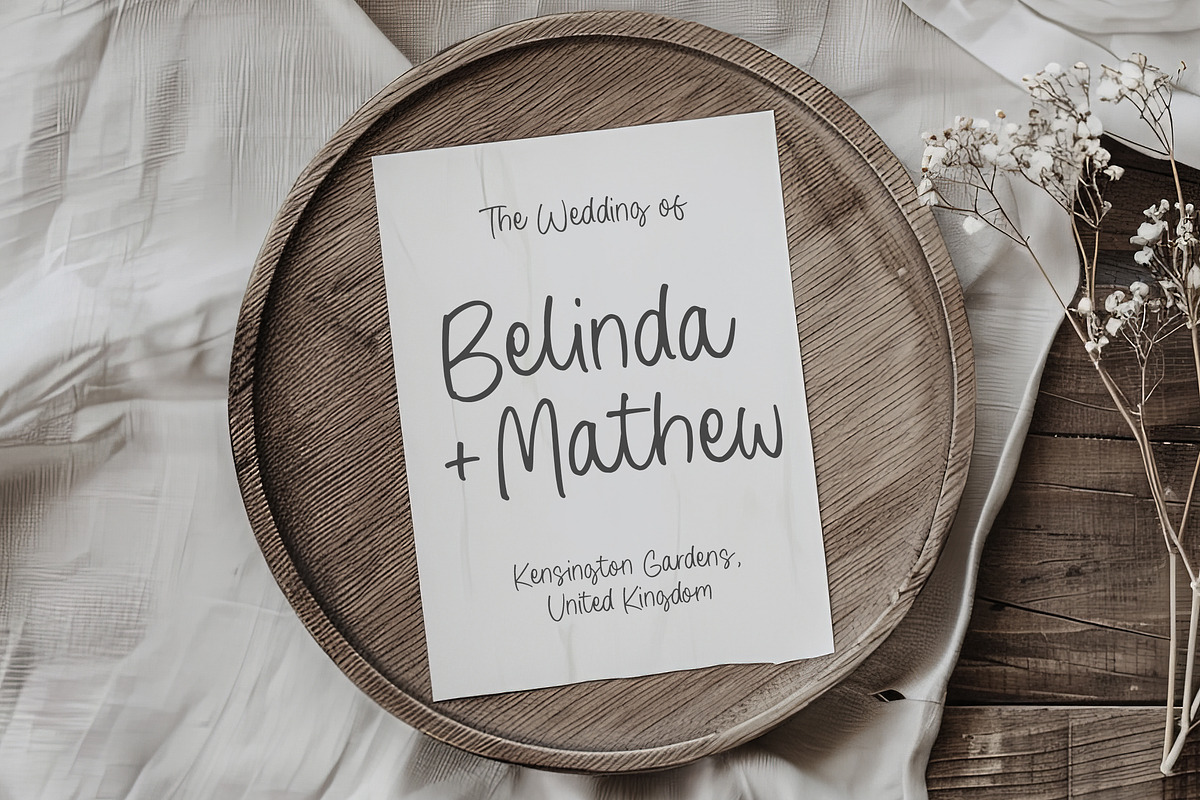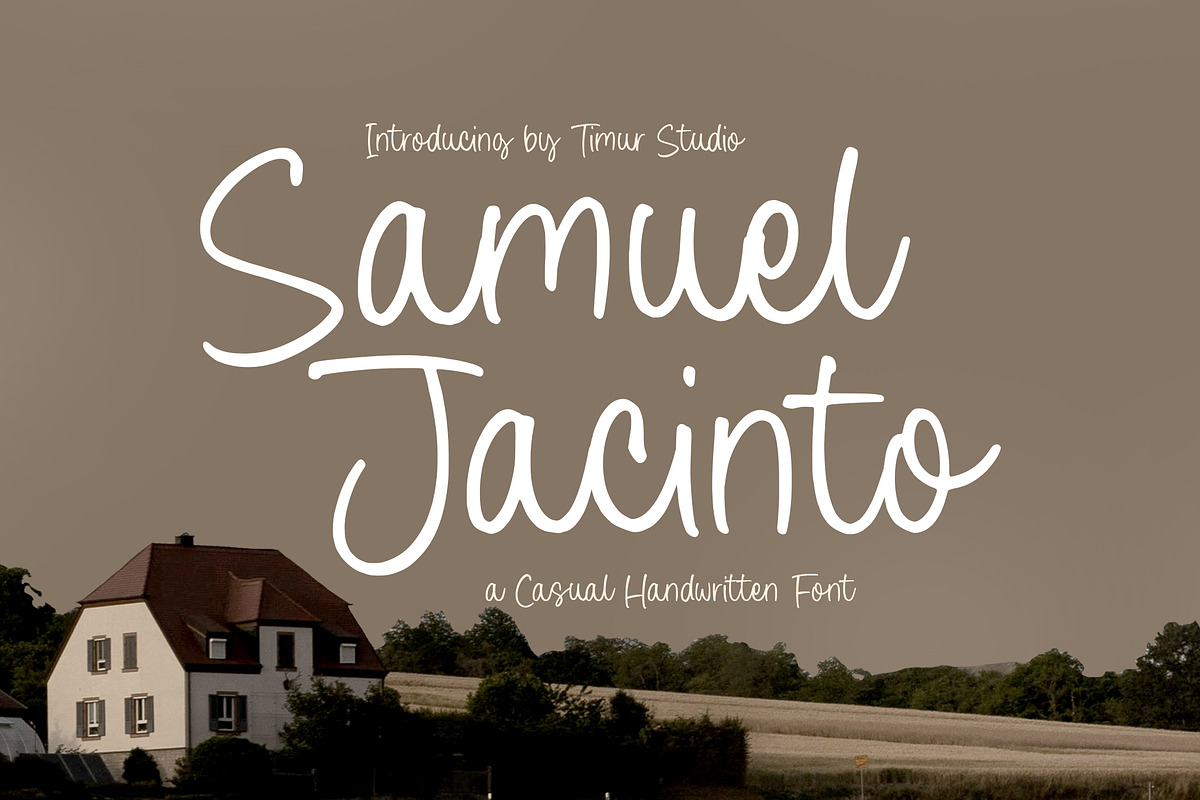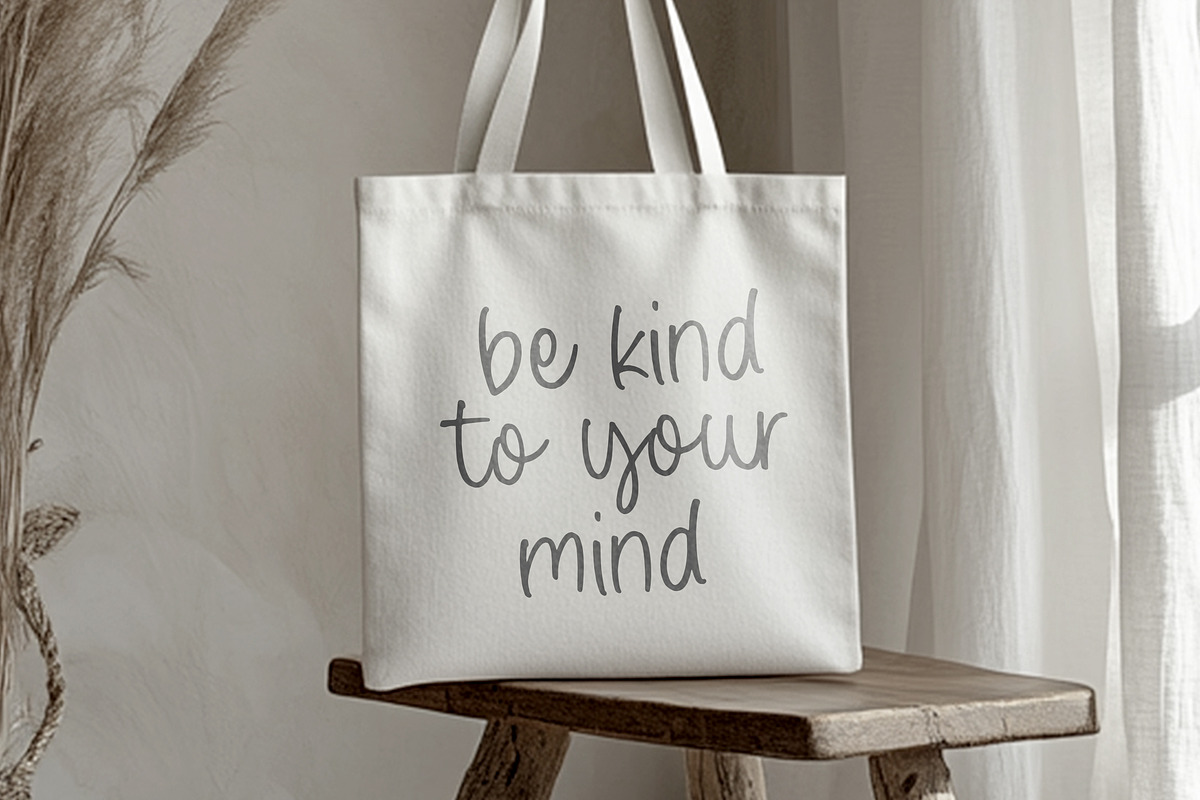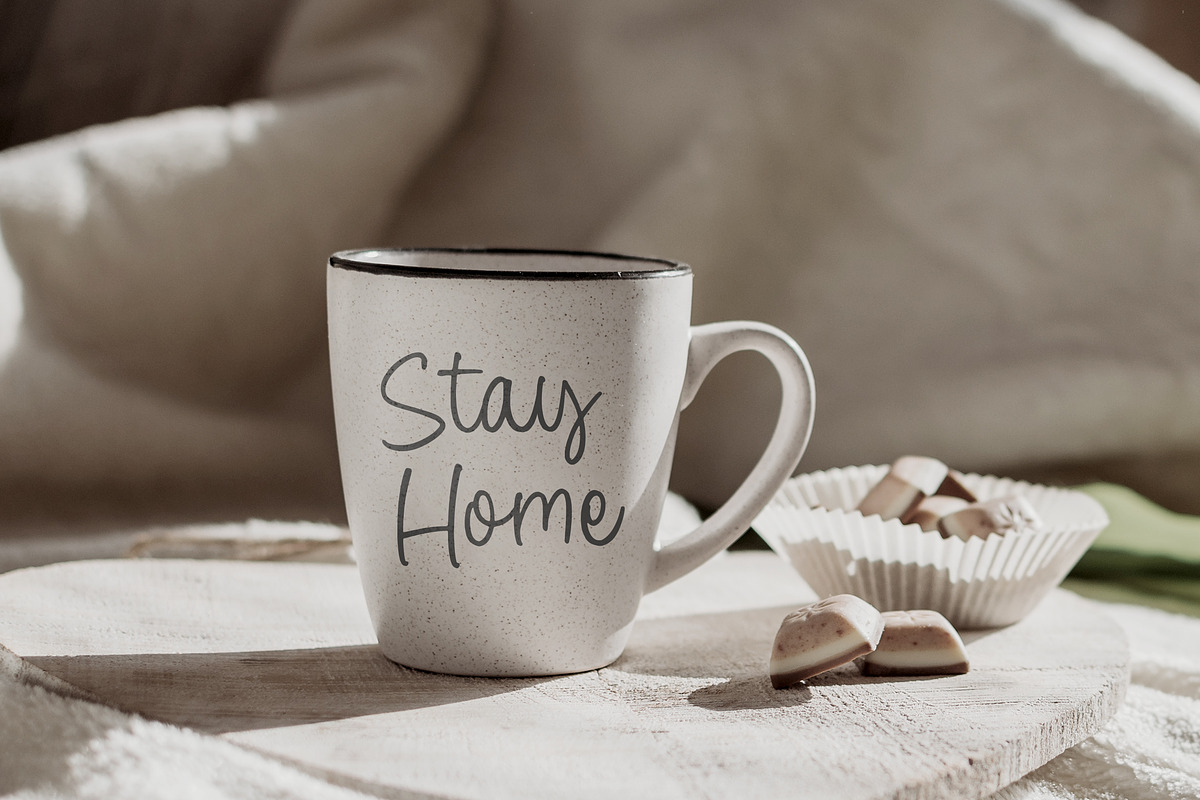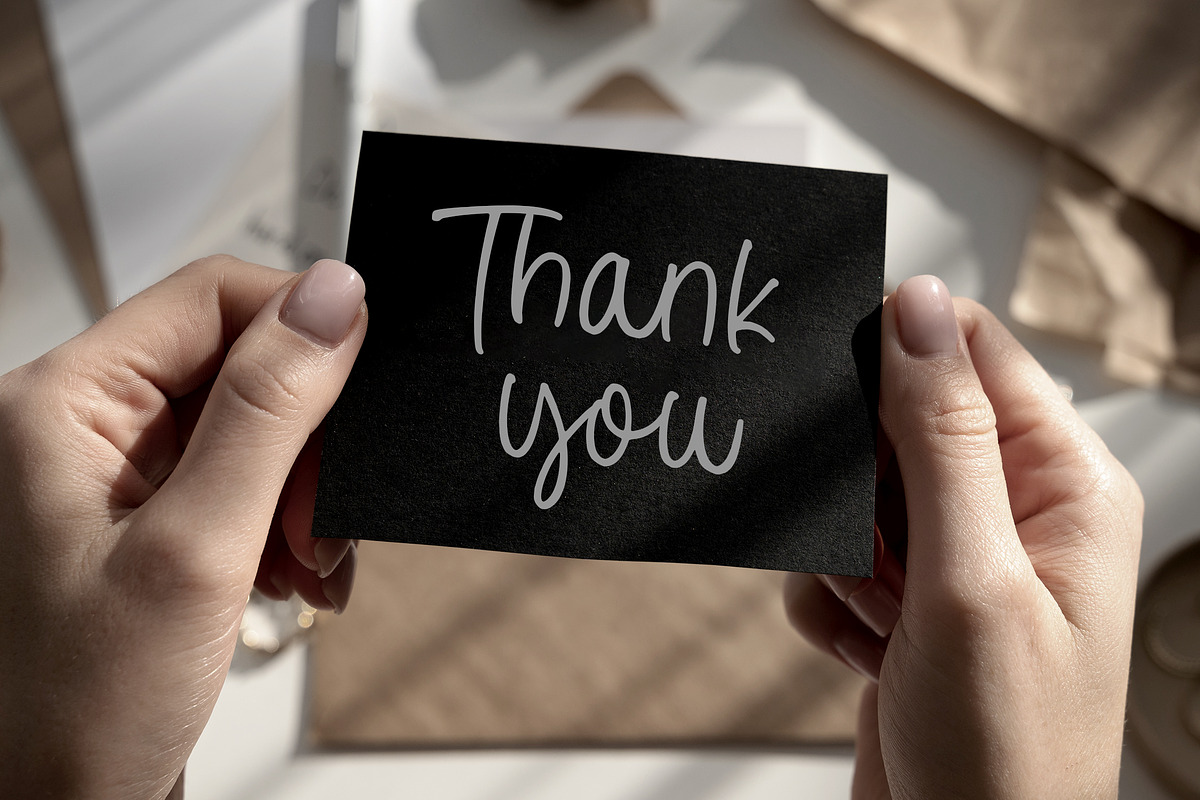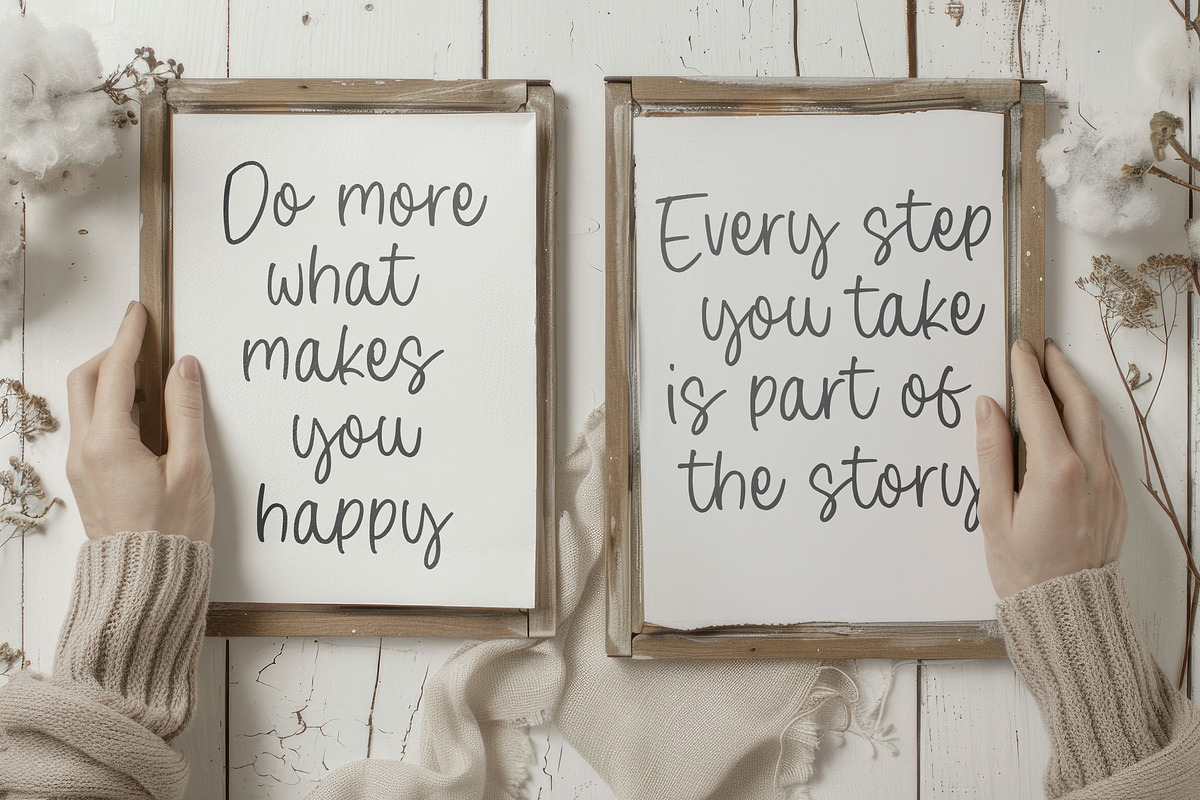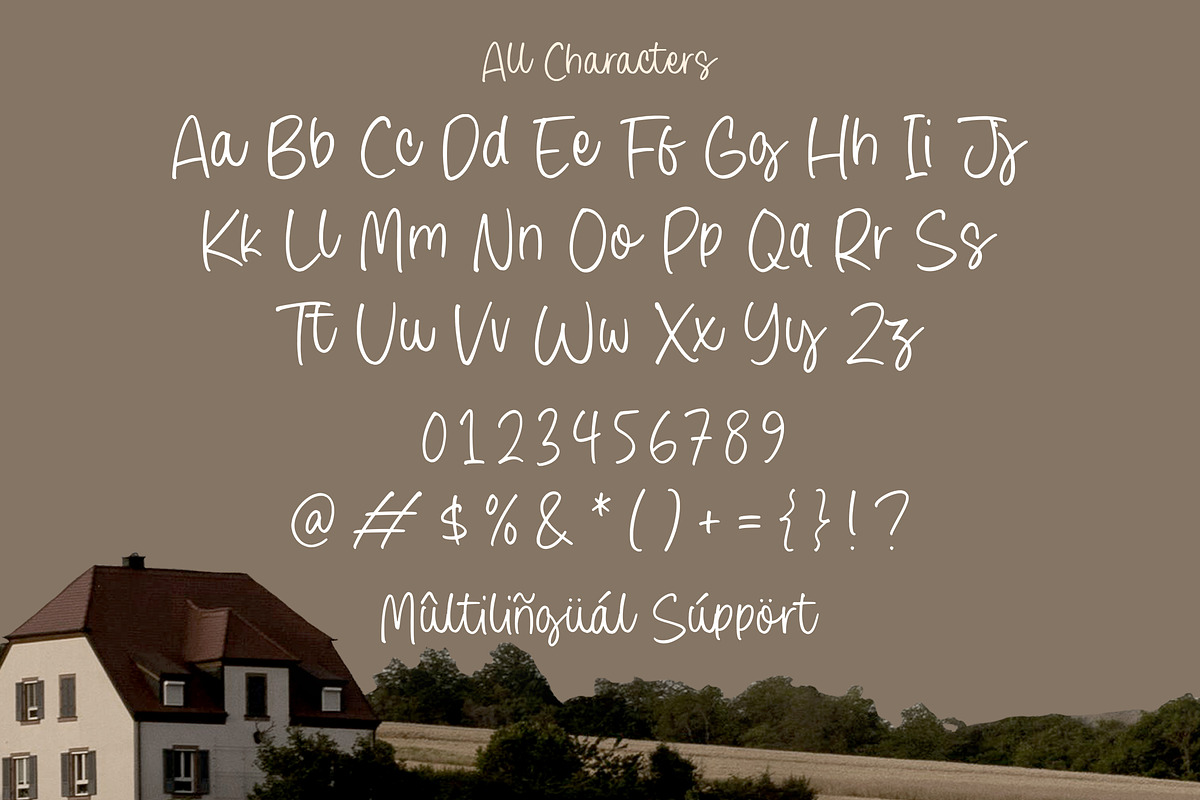
Samuel Jacinto Font
Samuel Jacinto is a Casual Handwritten Font
This font is a casual handwritten font that blends smooth, flowing strokes with a natural touch. Perfect for branding, invitations, or social media, it captures the charm of everyday handwriting while maintaining clarity and style. Its relaxed character makes it ideal for projects that aim for warmth and approachability.
Samuel Jacinto Font also supports multilingualism